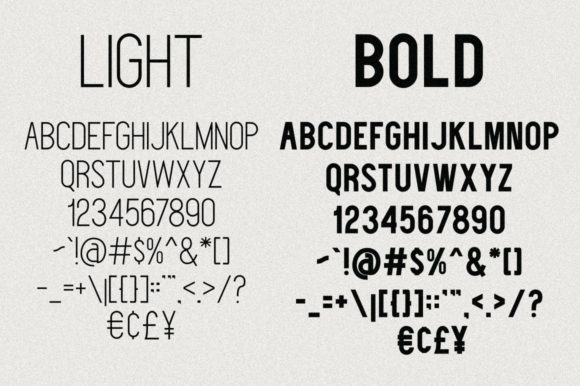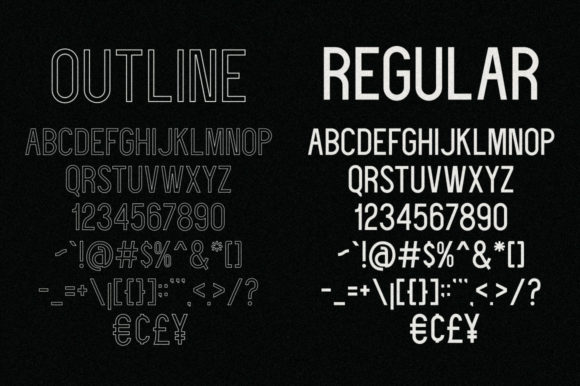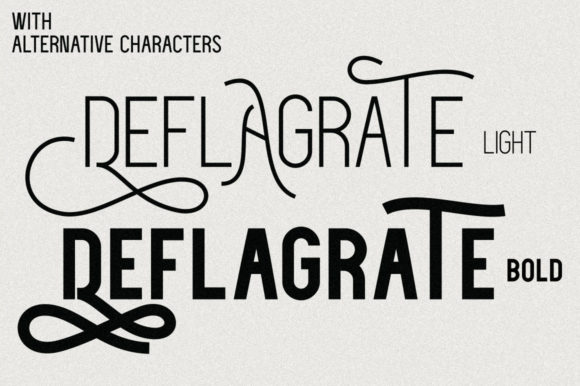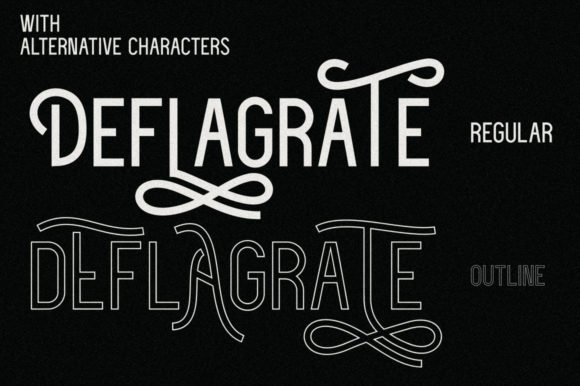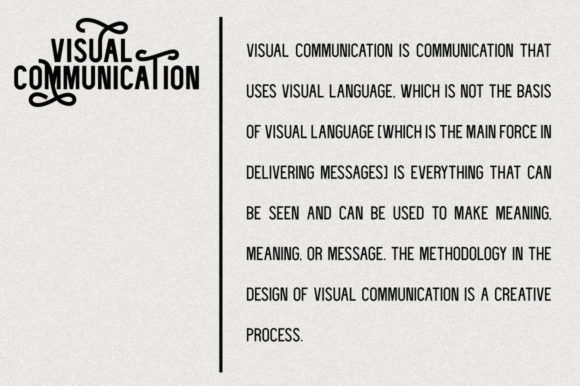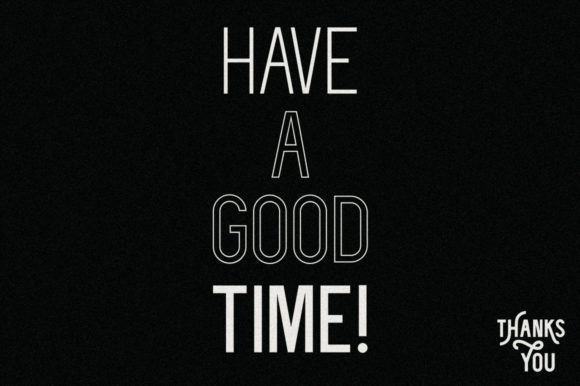
Discover the Modern Elegance of Deflagrate Font
In the realm of typography, fonts play a pivotal role in conveying messages, expressing creativity, and capturing the essence of a brand or design. Among the myriad of fonts available, Deflagrate stands out as a beacon of modernity and sophistication. This article delves into the characteristics, applications, and inspirations behind Deflagrate, a modern sans serif font that is redefining the landscape of contemporary design.
The Essence of Deflagrate Font
Deflagrate is a modern sans serif font that embodies the spirit of contemporary coolness. Its clean lines, coupled with beautiful swashes, offer a unique blend of simplicity and elegance. The font’s design is meticulously crafted to cater to the needs of designers and crafters who seek a typography that is both versatile and stylish.
Characteristics of Deflagrate
- Modern Sans Serif: Deflagrate’s core is its sans serif design, which provides a clean and minimalist look, making it perfect for a wide range of applications, from digital media to print.
- Beautiful Swashes: What sets Deflagrate apart is its inclusion of beautiful swashes. These elegant strokes add a touch of sophistication and flair to any design, allowing for creative freedom and expression.
- Contemporary Coolness: Deflagrate is inspired by the latest trends in design, making it an ideal choice for projects that require a modern edge. Its cool and calm demeanor ensures that it can be used in various contexts without appearing outdated.
Applications of Deflagrate Font
The versatility of Deflagrate makes it suitable for a multitude of design projects. Here are some of the areas where Deflagrate can make a significant impact:
- Branding and Logos: Deflagrate’s unique swashes and modern look make it an excellent choice for branding and logo design. It can help create a memorable and impactful brand identity.
- Packaging Design: For product packaging, Deflagrate offers a fresh and appealing look that can make products stand out on the shelves.
- Digital Media: In the digital realm, Deflagrate shines in website design, social media graphics, and digital advertising, providing a professional yet contemporary feel.
- Print Media: Deflagrate is equally effective in print media, including magazines, brochures, and posters, where its clarity and elegance can be fully appreciated.
Tips for Using Deflagrate Effectively
To make the most out of Deflagrate, consider the following tips:
- Experiment with Swashes: Don’t be afraid to experiment with the swashes to add a personal touch to your designs.
- Mix and Match: Combine Deflagrate with other fonts to create a unique and compelling visual hierarchy.
- Consider the Context: Ensure that the use of Deflagrate aligns with the overall theme and message of your project.
Deflagrate font is a remarkable addition to the world of typography, offering a blend of modernity, elegance, and versatility. Its beautiful swashes and contemporary coolness make it an ideal choice for designers and crafters looking to elevate their designs. Whether you’re working on branding, digital media, or print projects, Deflagrate is sure to inspire and enhance your creative endeavors.
Embrace the modern elegance of Deflagrate and discover a world of limitless design possibilities.